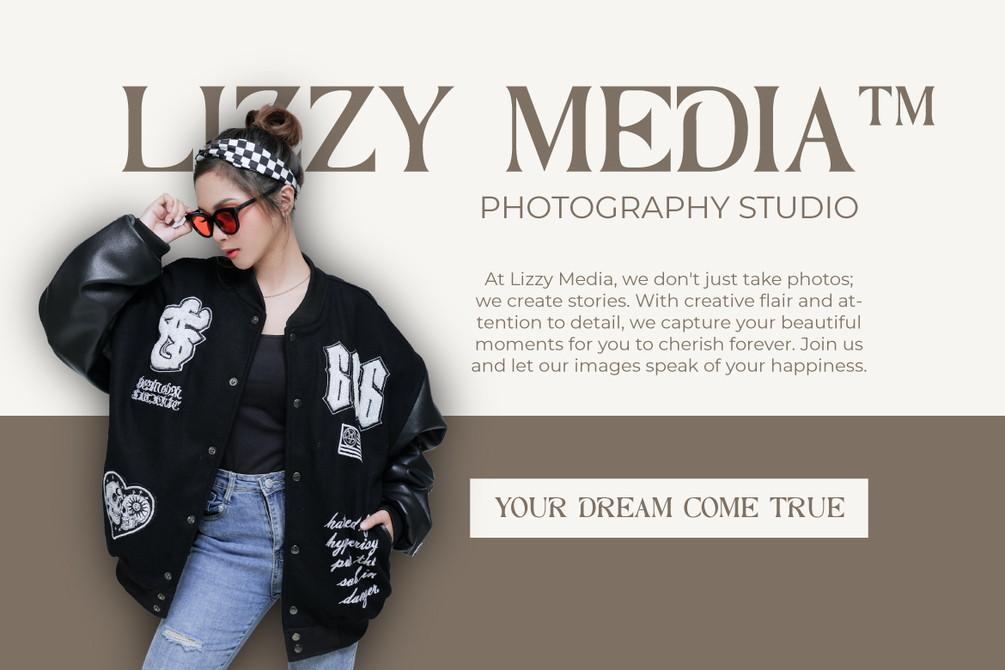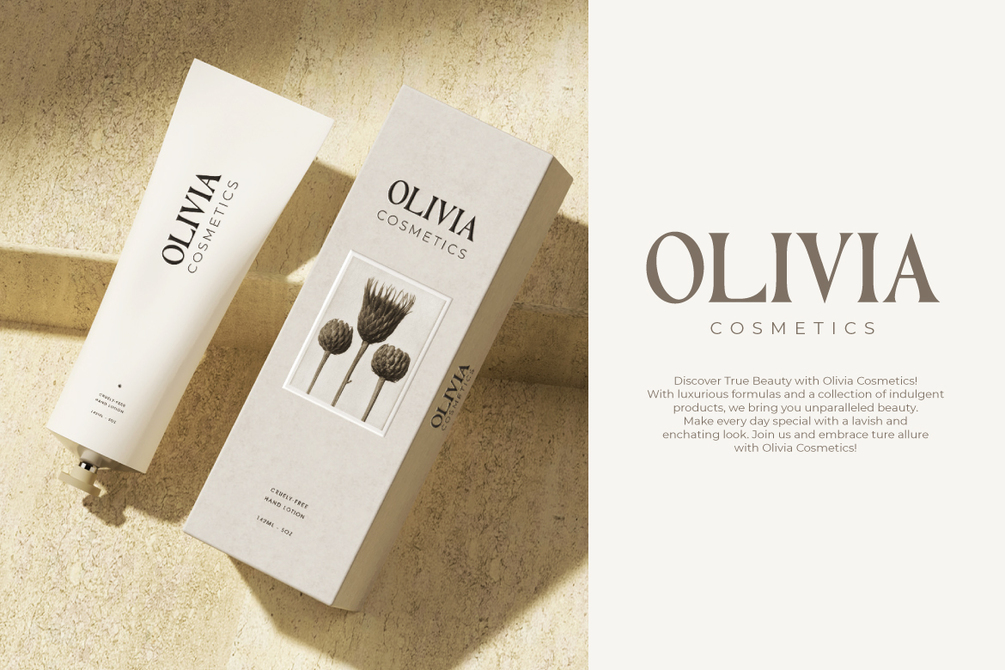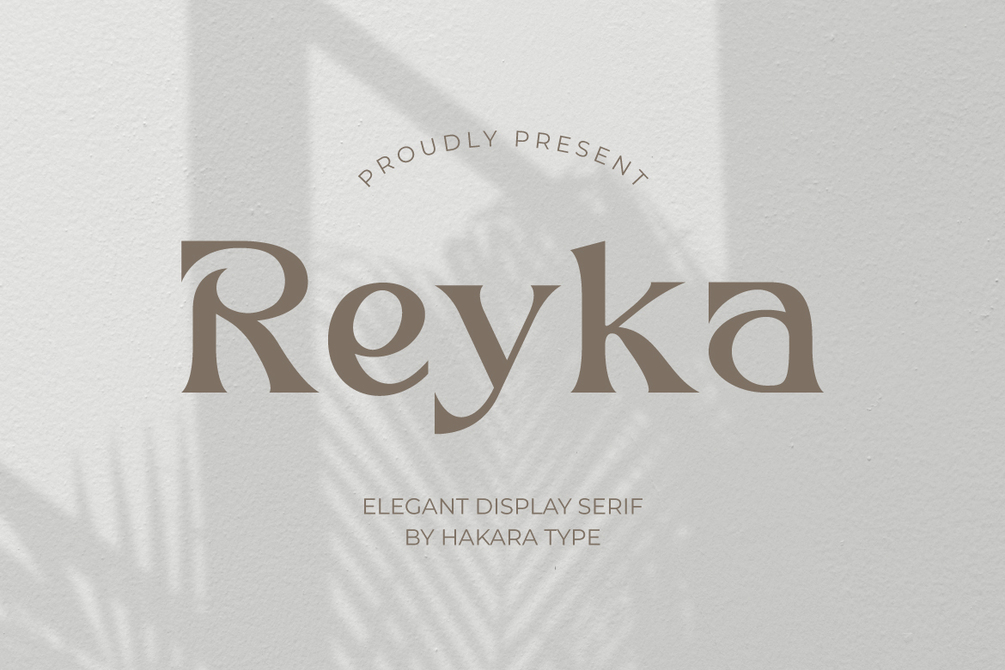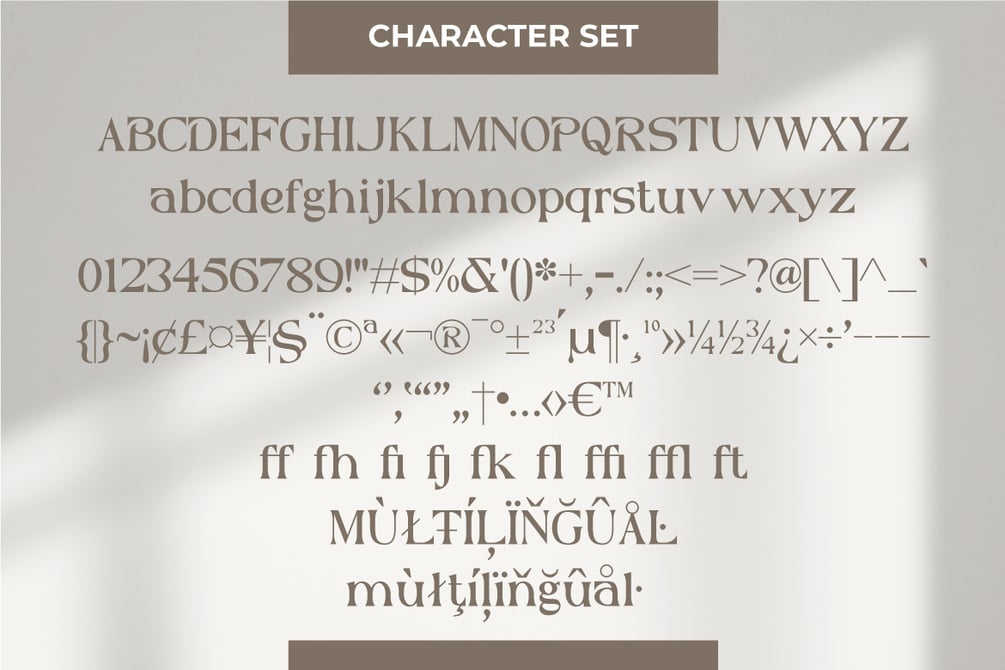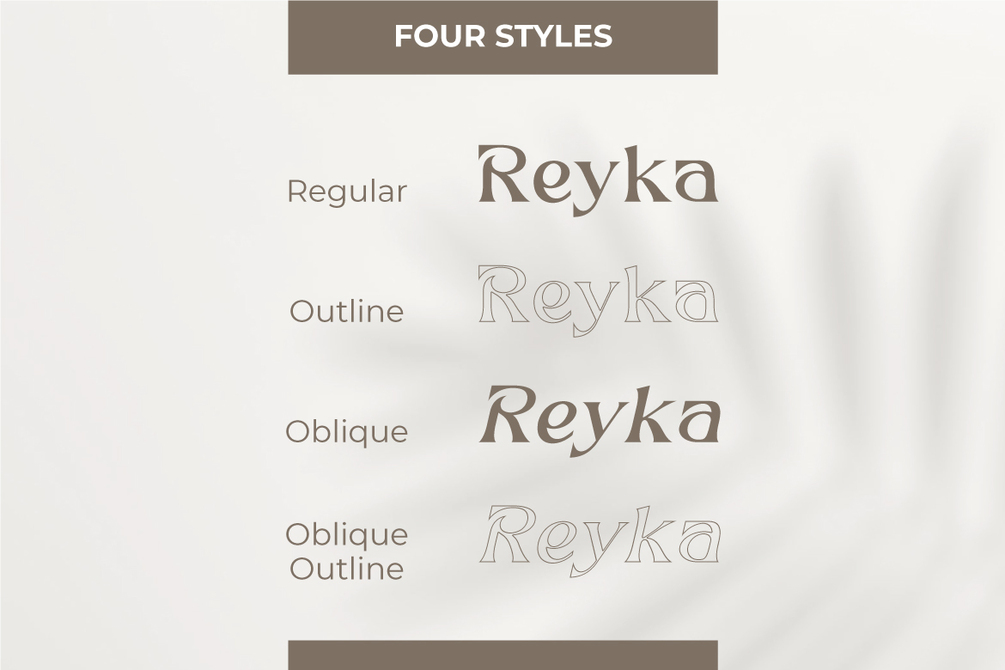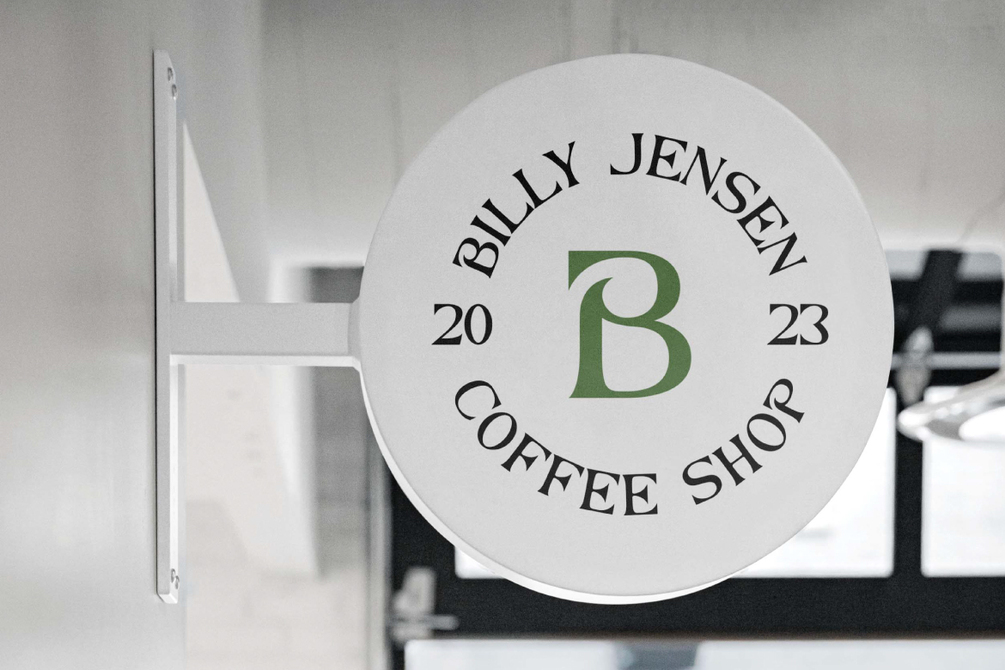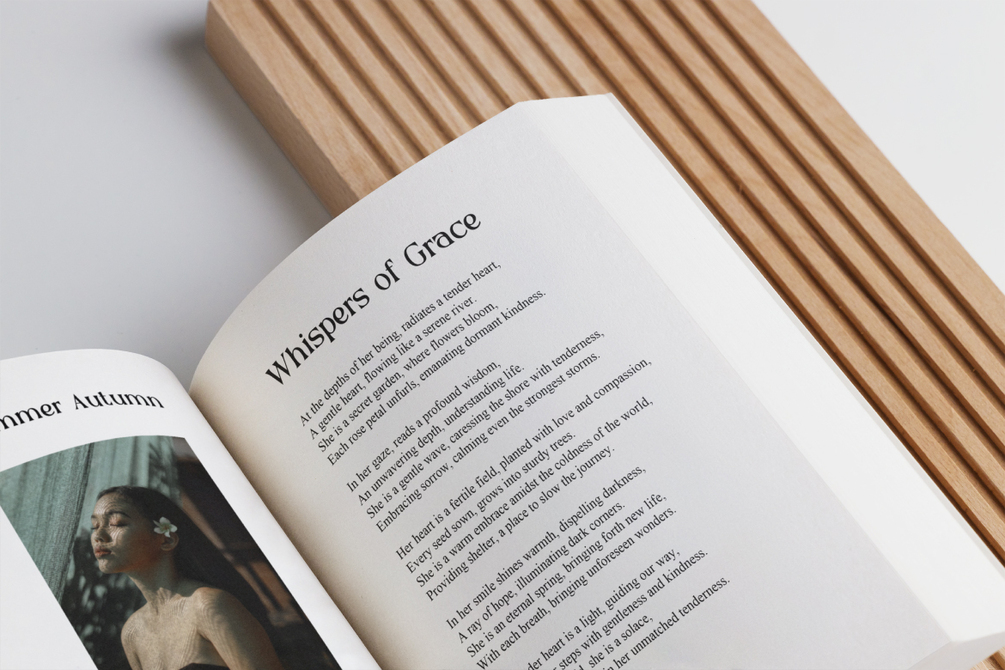
Reyka - Stylish Display Serif
Reyka is a modern display typeface with bold and soft serif shapes, making it elegant and eye-catching. Presenting in four styles including regular, oblique, outline, and outline oblique can become unique and appealing combinations in every design project created. Thus Reyka could be an ideal choice for various design projects, from branding, advertising, logos, headlines, posters and others.
Reyka comes with uppercase, lowercase, numbers, function, standard ligature, and included multilingual support. You can see which languages are supported by Reyka here.